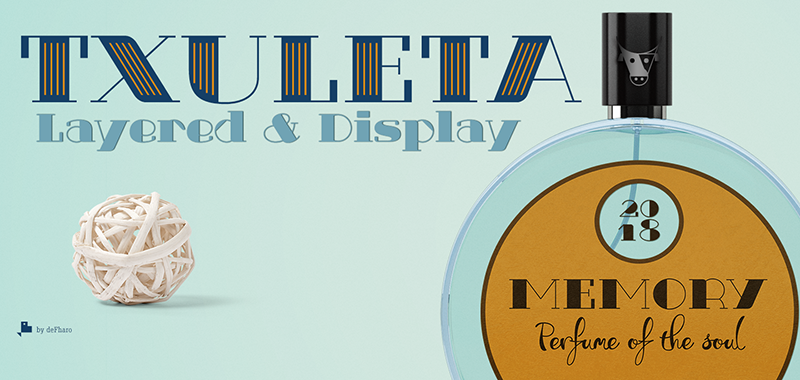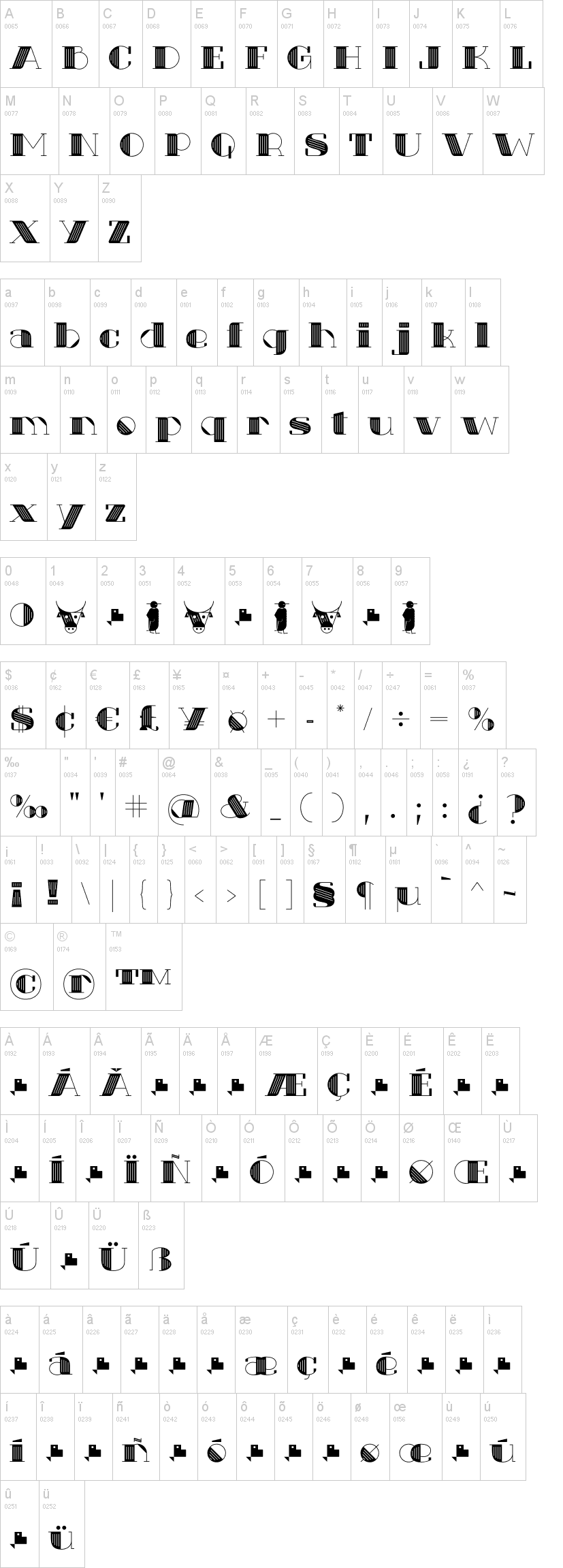
Note of the authorTxuleta is an elegant display type of modernist style, geometric construction and wide proportion.
Txuleta is a modernized descendant of the didonas typographies, with extreme contrast between antlers and thin bodonian serifs.
The typography is composed of 3 combinable styles by layers to create multicolored typographic headlines.
Txuleta includes alternative letters for some uppercase and lowercase letters, old style numbers and other Open Type functions.